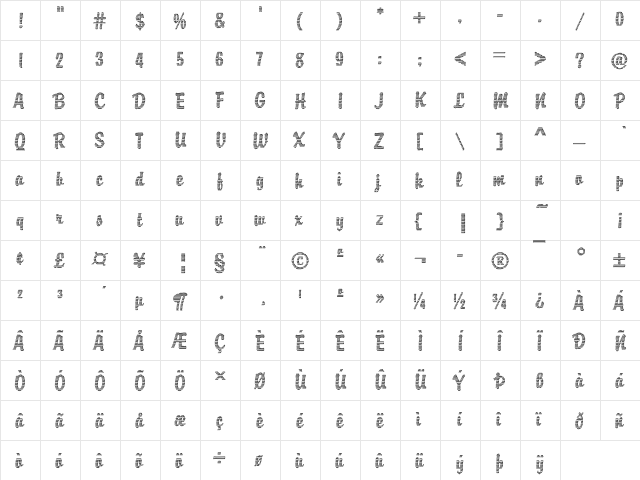
DTCBrodyM07 Regular
Design Context for DTCBrodyM07 Typeface
DTCBrodyM07 is a composed and adaptable typeface that performs quietly and consistently across a wide range of design contexts.